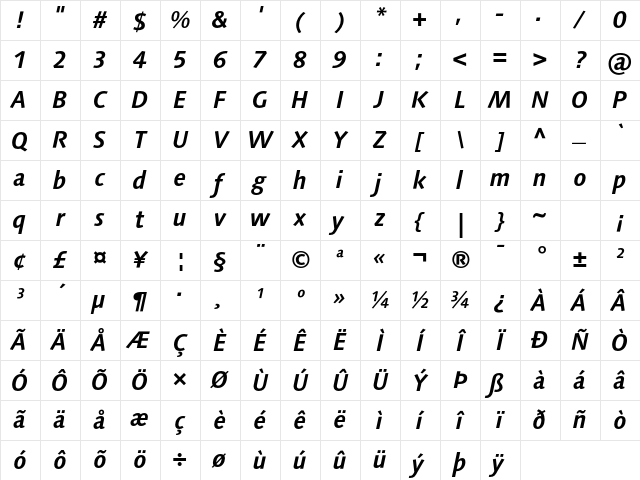
LinotypeSyntax BoldItalic
Design Context for LinotypeSyntax
LinotypeSyntax is a composed and adaptable typeface that performs quietly and consistently across a wide range of design contexts. The slanted form adds forward momentum and visual energy. Its bold stroke weight gives it real presence on the page.